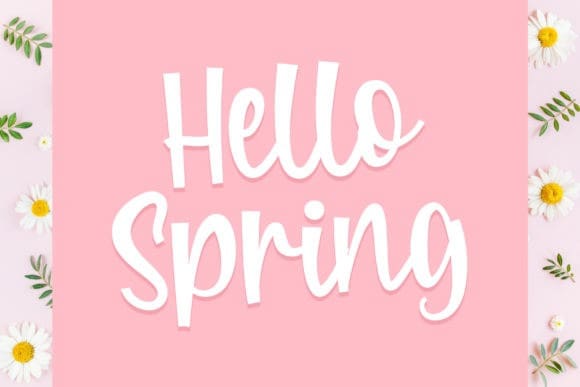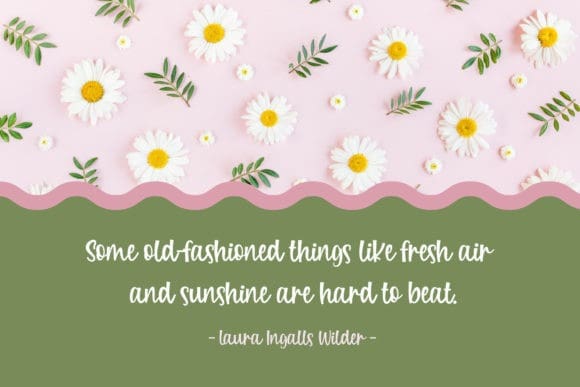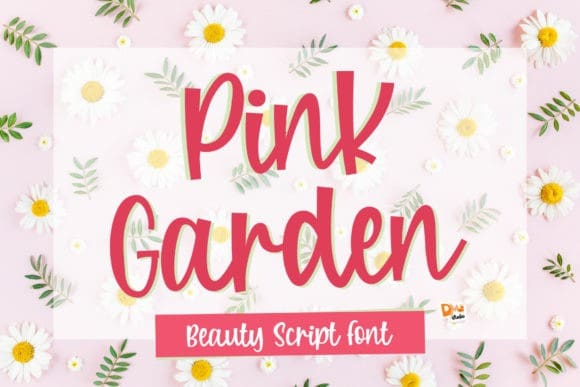
Pink Garden Font
Pink Garden Font – Beauty Script Font. Make your design more stunning and unique using this beautiful script font. Combine it with your favorite sans serif font, and it won’t lose its elegance.